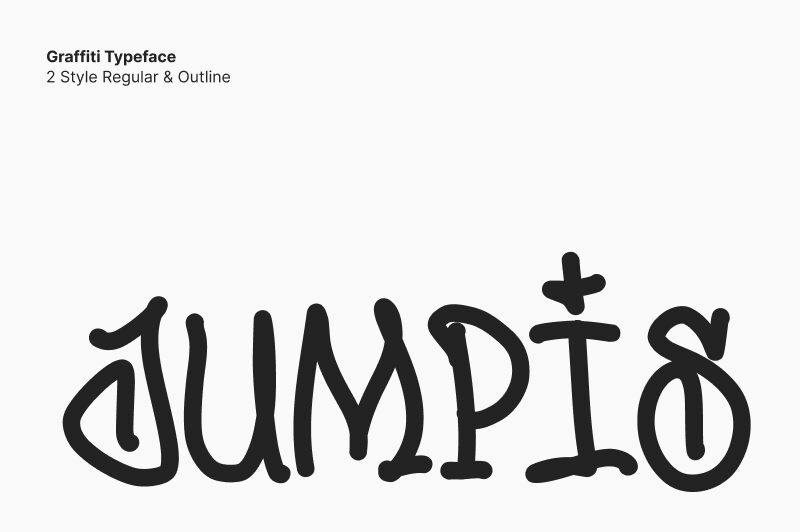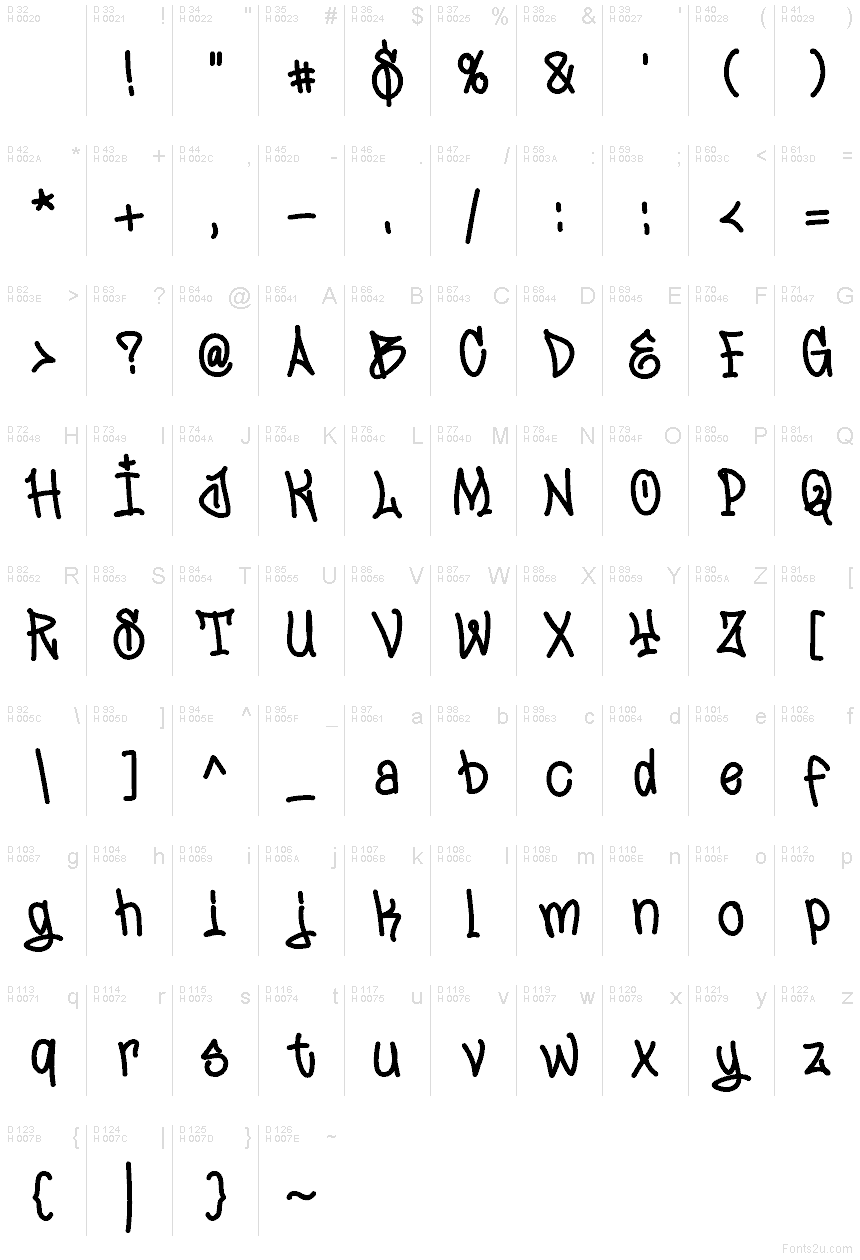
Jumpis Graffiti font by Fitrah Type is a free graffiti typeface. Its letters bounce with a hand-drawn swagger-rounded, inky strokes, scuffed edges, and a loose rhythm that feels fresh from a paint marker. The energy is streetwise but friendly, landing that sweet spot between unruly and readable.
Using Jumpis Graffiti, headlines snap to attention on streetwear branding, music flyers, skate posters, sticker packs, youth event signage, and playful YouTube thumbnails. The lively spacing gives copy a jumpy cadence that reads fast at big sizes and still holds texture up close. Pair this free font with a clean geometric sans to keep body text grounded, and let Jumpis carry the headline at 120% tracking for extra bounce.
Jumpis Graffiti by Fitrah Type.